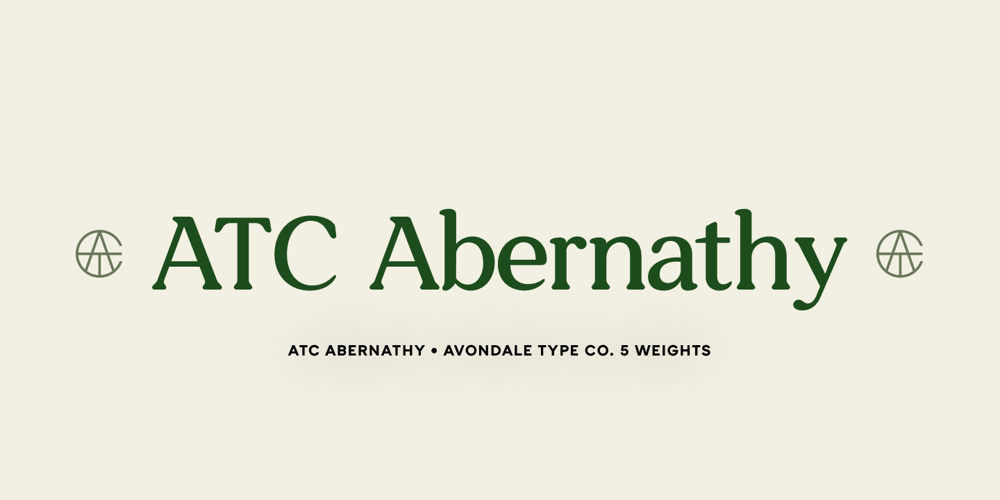
ATC Abernathy Font Family was designed by Jason Schwartz, Alex Sheyn and published by Avondale Type Co.. ATC Abernathy contains 5 styles and family package options. ATC Abernathy, is a soft serif typeface based on retro package design.With a modern influence, it bridges the gap between old and new. Contains 330+ glyphs, full alphabet, ligatures, numerals, accents and punctuation. ATC Abernathy was released in 2018.